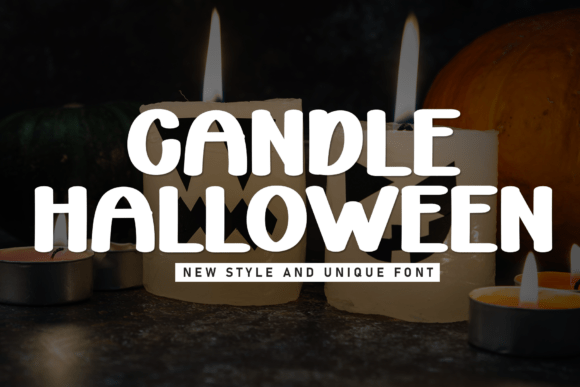
The Magic of Candle Halloween Font: A Designer’s Delight
As a designer, I’ve had my fair share of late nights scrolling through font libraries, searching for that perfect match for a project. But one font that has truly captured my heart is the Candle Halloween Font. Its whimsical charm and playful vibe have made it a staple in my design toolkit. In this article, I’ll share my experience with this delightful font, its features, and how to make the most of it in your designs.
A Moment of Design Frustration
I recall working on a wedding invitation project, determined to create something that would make my client’s eyes sparkle. The invitation needed to reflect the couple’s fun and adventurous personalities, but I was struggling to find a font that would bring it all together. That’s when I stumbled upon the Candle Halloween Font. Its sweet, handwritten style instantly resonated with me, and I knew I had found the perfect fit.
So, what makes the Candle Halloween Font so special? Here are a few things I love about it:
- ✨ Unique Character: This font has a distinct personality that sets it apart from other handwritten fonts.
- ✅ Easy to Read: Despite its playful nature, the font remains clear and easy to read, even at smaller sizes.
- 💕 Emotional Connection: The font’s warm and whimsical feel makes it perfect for designs that require an emotional connection, such as wedding invitations, greeting cards, or children’s books.
However, I do have to mention a few quirks:
- 🤔 Limited Use Cases: While the font is incredibly versatile, it may not be the best fit for more formal or corporate designs.
- ⚠️ Glyph Limitations: Some users may find the glyph selection limited, but this can also be seen as a blessing in disguise, as it keeps the font’s character consistent.
The Backstory of Candle Halloween Font
The Candle Halloween Font was designed with the intention of creating a unique and captivating handwritten font. Its creator aimed to craft a font that would evoke emotions and bring a touch of whimsy to designs. The result is a font that is both sweet and playful, perfect for a wide range of creative projects.
| Can I use the Candle Halloween Font for my wedding invitations? | Absolutely! The font’s sweet and whimsical nature makes it perfect for wedding invitations and other special occasions. |
| Does the Candle Halloween Font support OpenType features? | Yes, the font supports OpenType features, including ligatures and stylistic alternates. |
| Can I use the Candle Halloween Font in my children’s book? | Yes, the font’s playful and whimsical feel makes it an excellent choice for children’s books and other kid-friendly designs. |
In conclusion, the Candle Halloween Font is a charming and versatile font that can add a touch of magic to your designs. With its unique character, ease of use, and emotional connection, it’s an excellent choice for designers, crafters, and creative hobbyists alike.